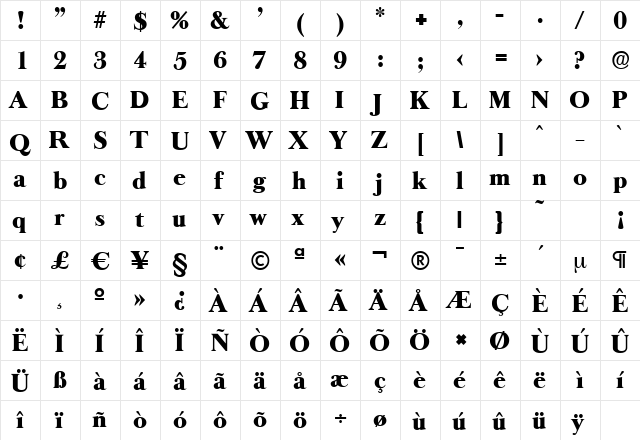
BaskerOldSerial-Heavy Regular
Design Context for BaskerOldSerial-Heavy Typeface
BaskerOldSerial-Heavy is a composed and adaptable typeface that performs quietly and consistently across a wide range of design contexts.